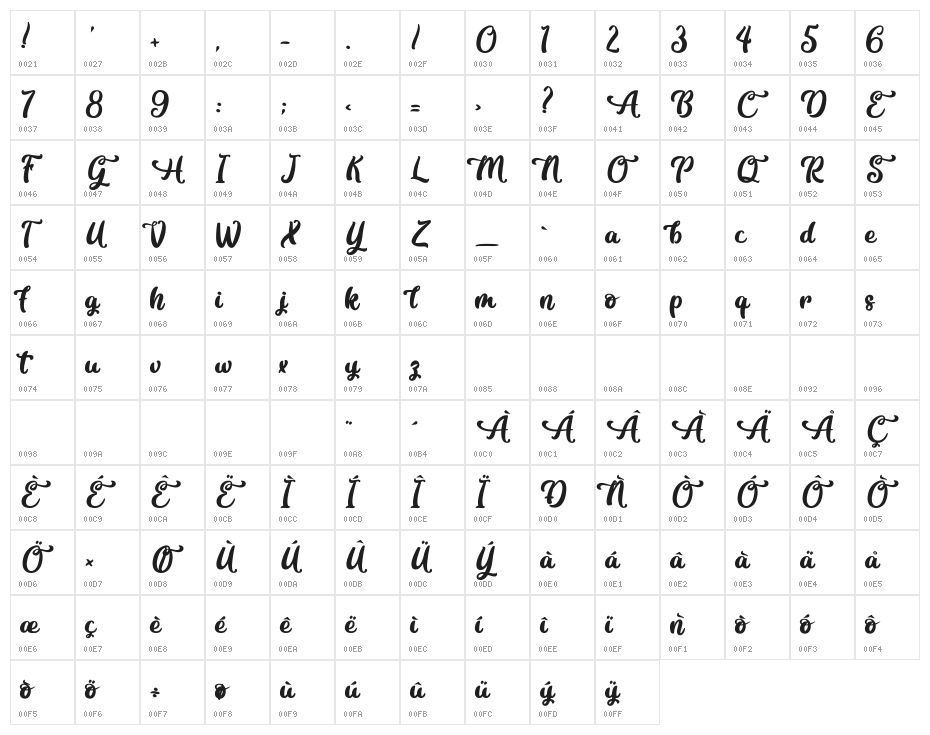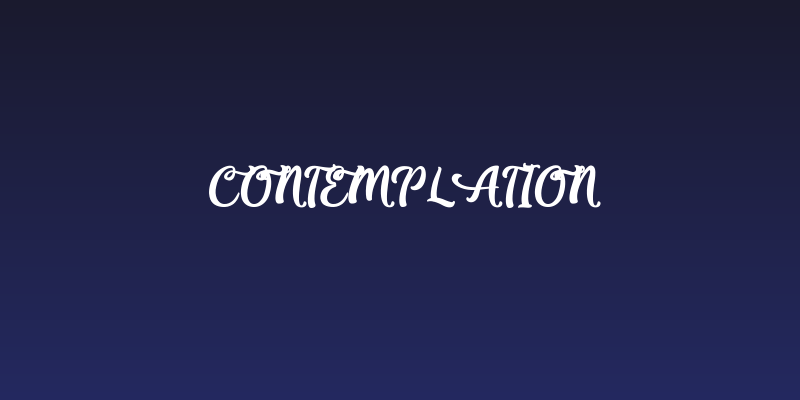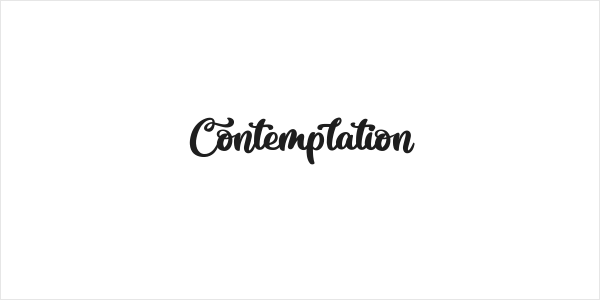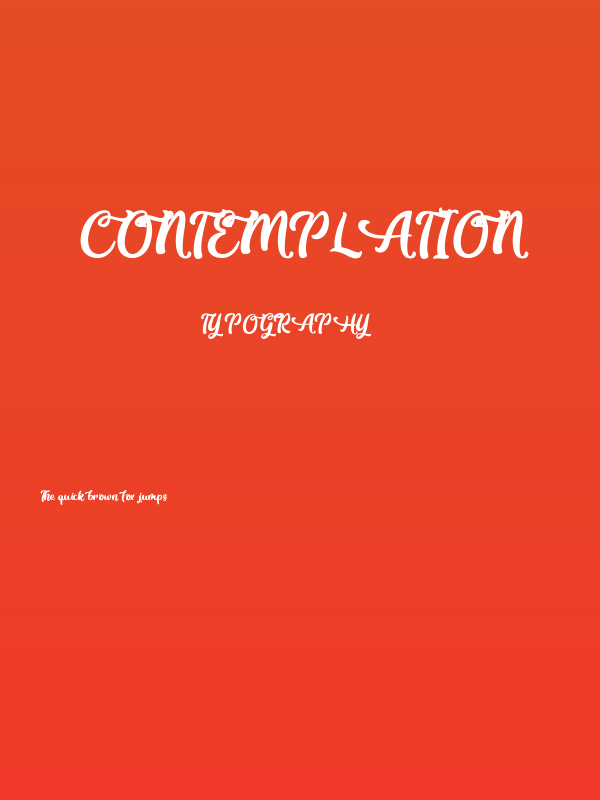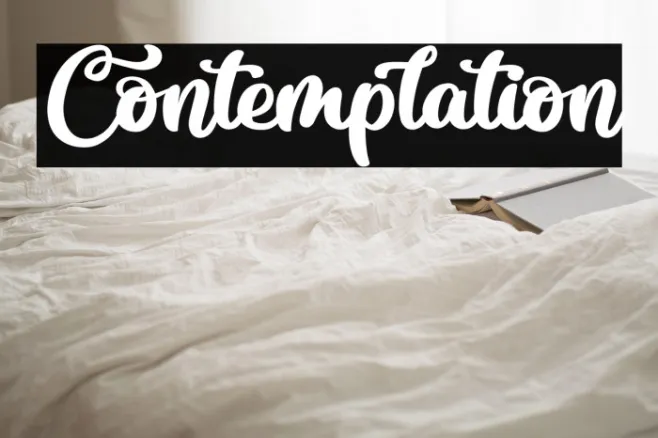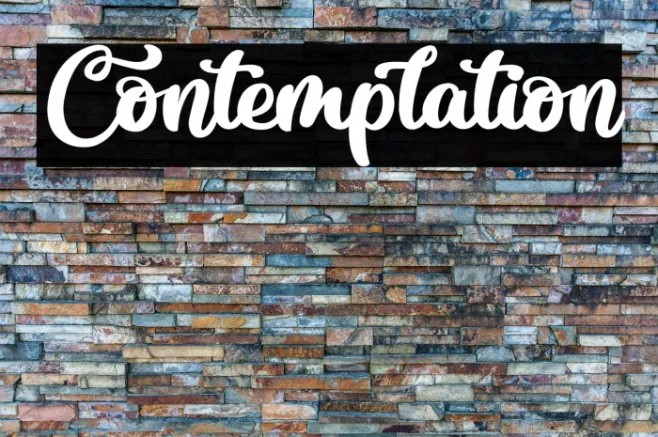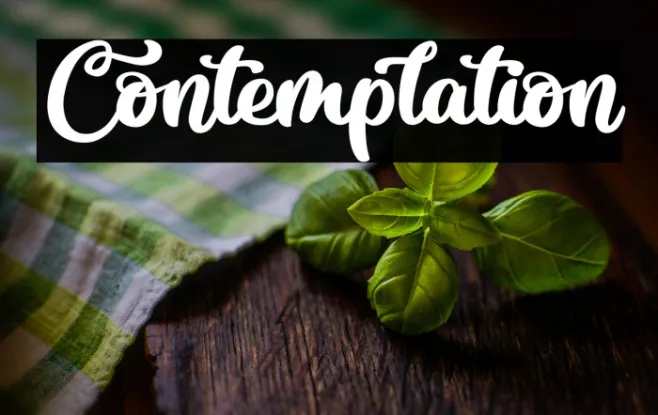
Contemplation Font
Contemplation Description
This font features a flowing, cursive style with elegant loops and swashes, giving it a handwritten appearance. The characters are connected, creating a seamless and fluid look. The uppercase letters are ornate, with exaggerated curves and flourishes, while the lowercase letters maintain a consistent style with a slightly more subdued flair. The numerals are bold and maintain the same cursive style, ensuring uniformity across the font. Special characters are included, matching the overall aesthetic with their own unique embellishments. This font exudes a sense of elegance and sophistication, making it suitable for formal and decorative uses.
| Proposed Projects | Ideal for wedding invitations, greeting cards, logos, and branding materials that require a touch of elegance. |